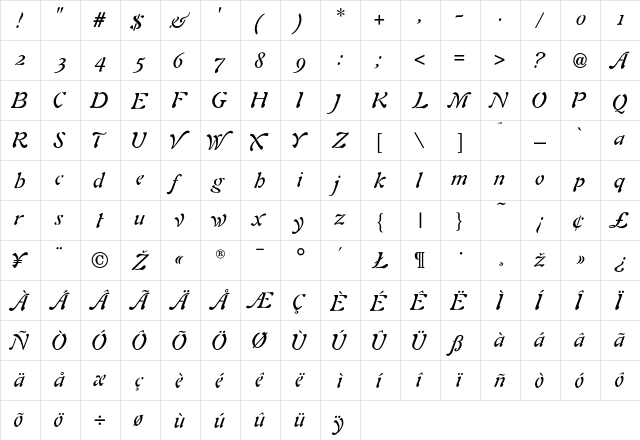
AuriolItalic Regular Font Preview
AuriolItalic Regular
AuriolItalic Regular Font Details
Design Context for AuriolItalic Typeface
AuriolItalic takes a measured approach to typography — its balanced proportions and neutral character make it a reliable workhorse for both digital and print work. Its italic angle brings a sense of urgency and motion to the letterforms.
Pro Tip: Use AuriolItalic for emphasis, pull quotes, and subheadings where its slanted energy can add rhythm to the layout.